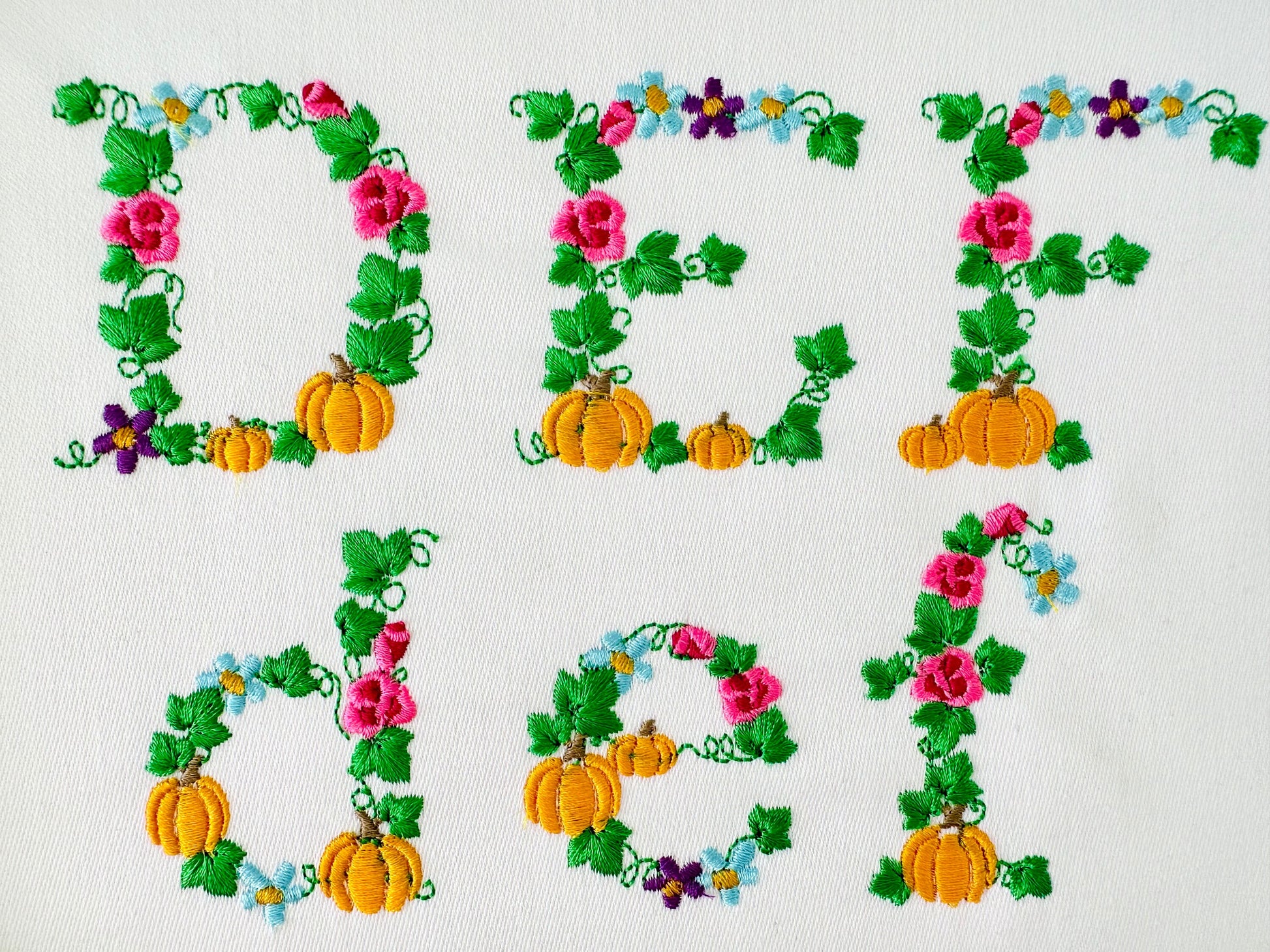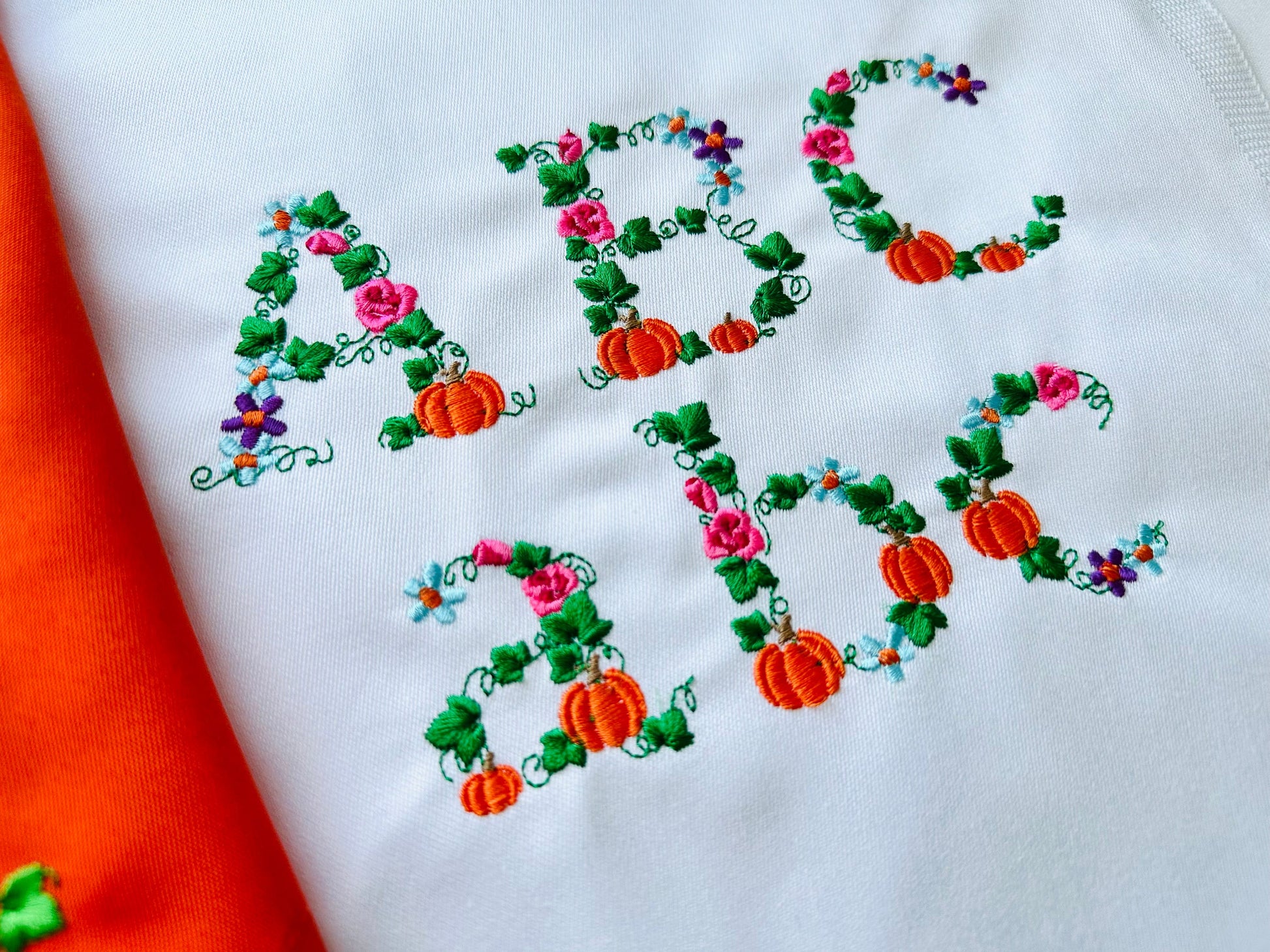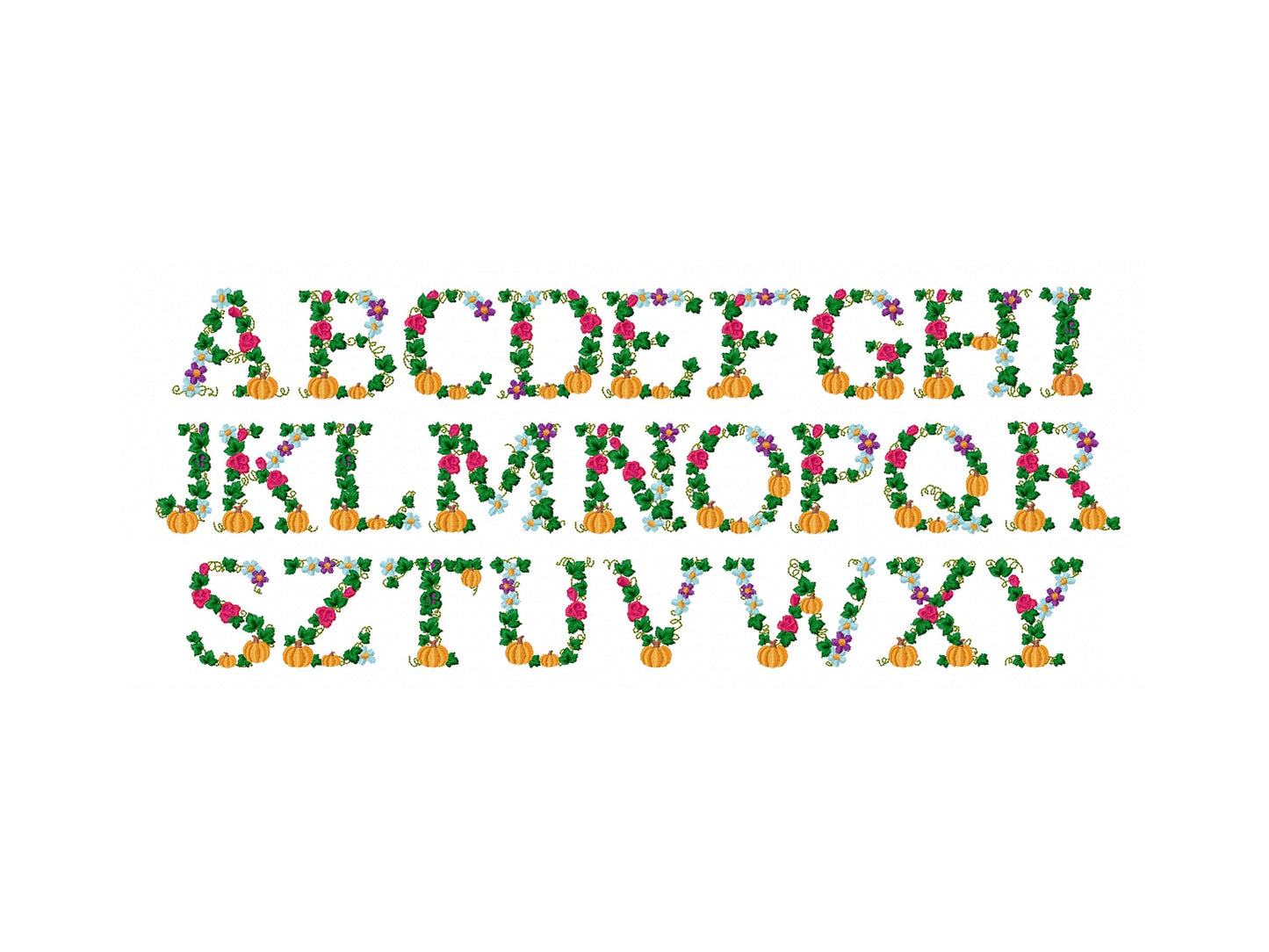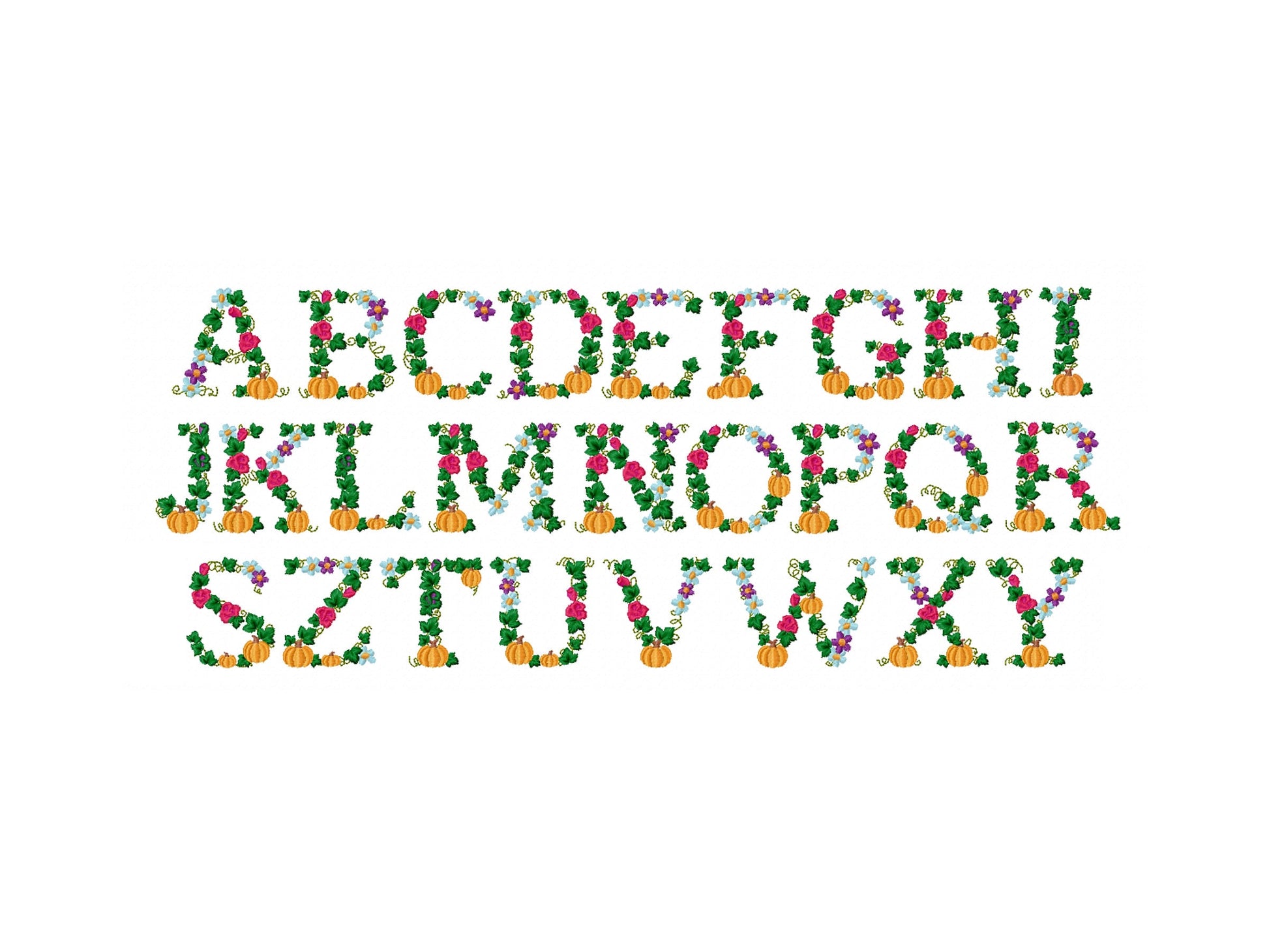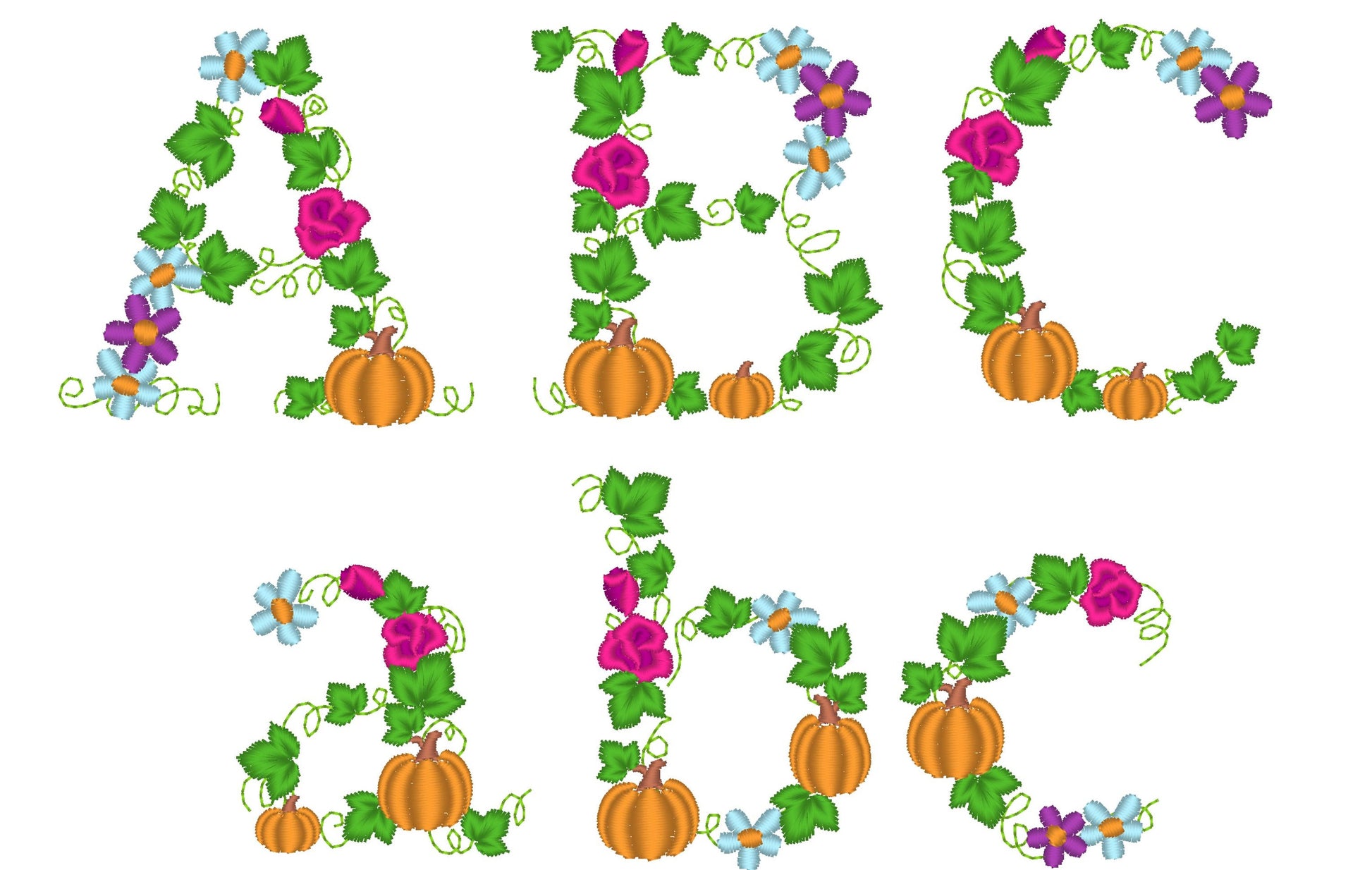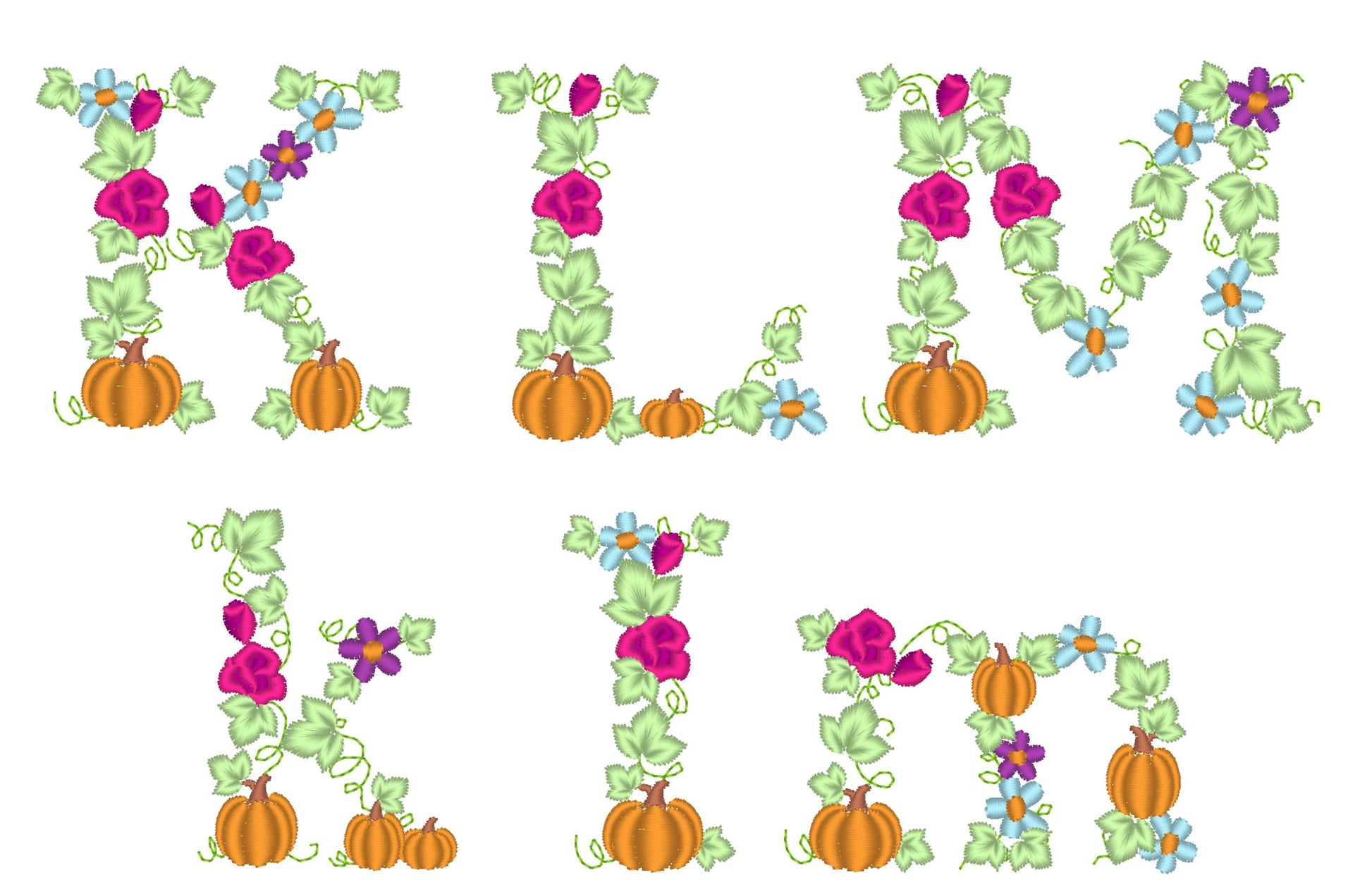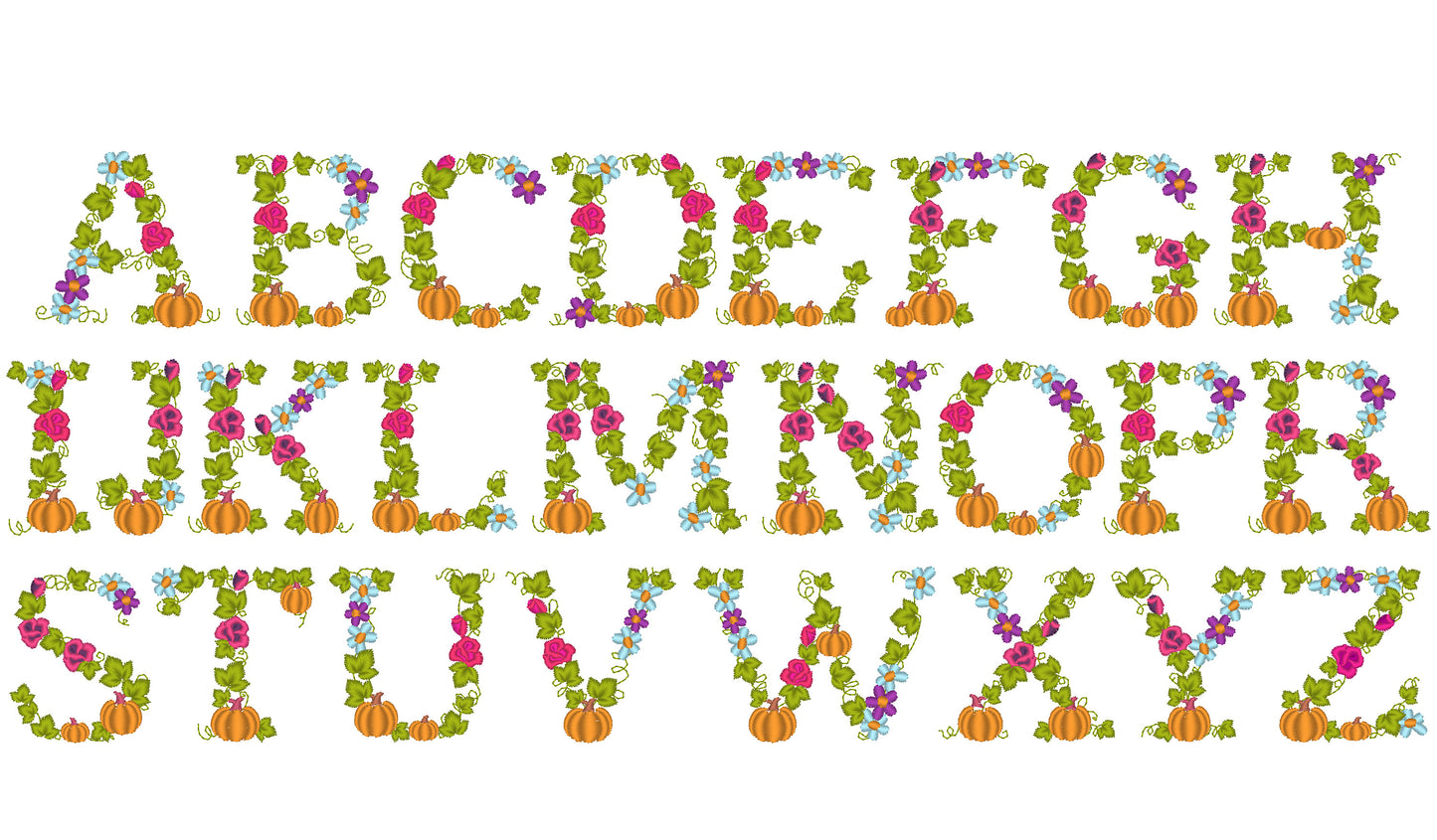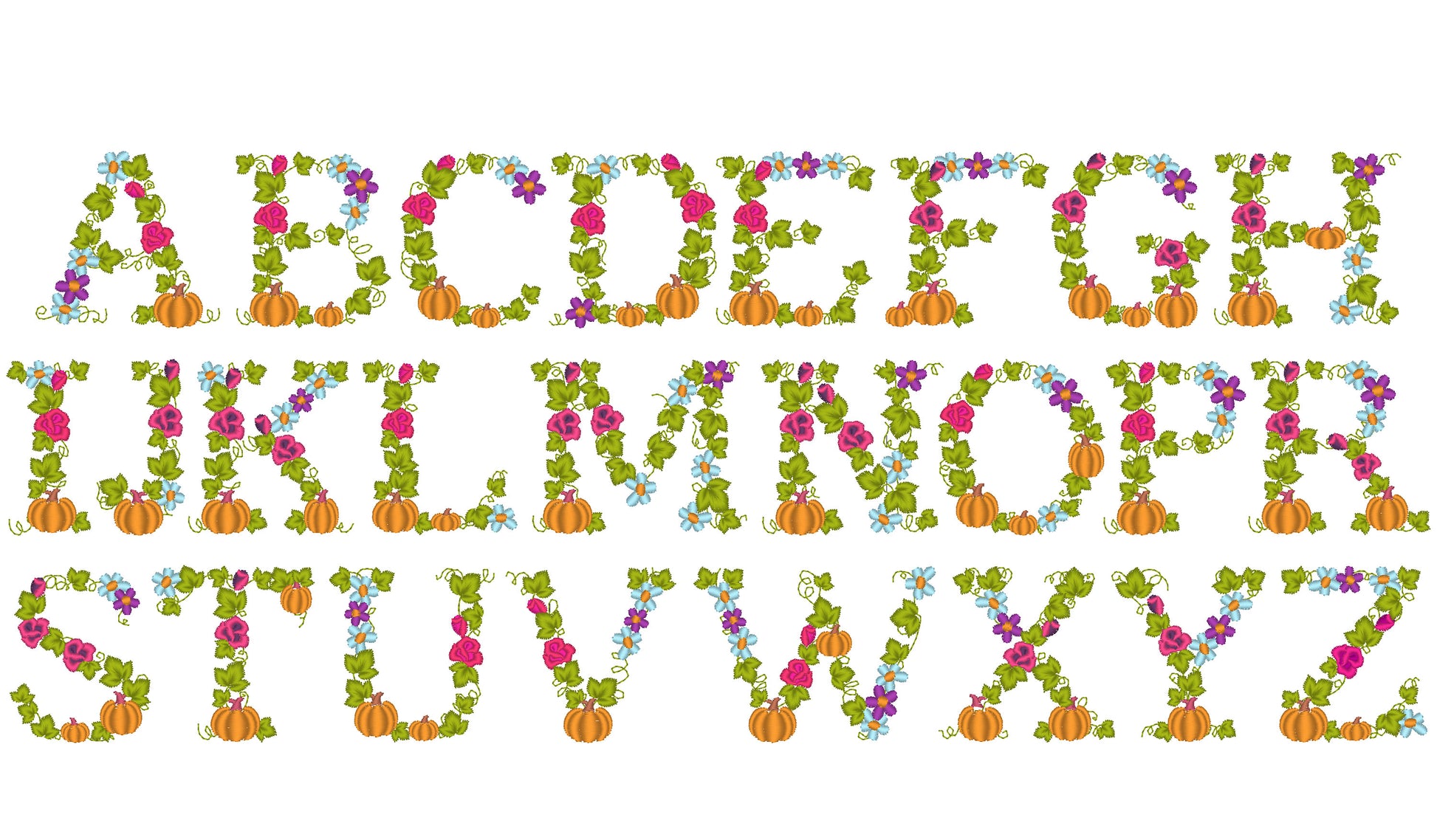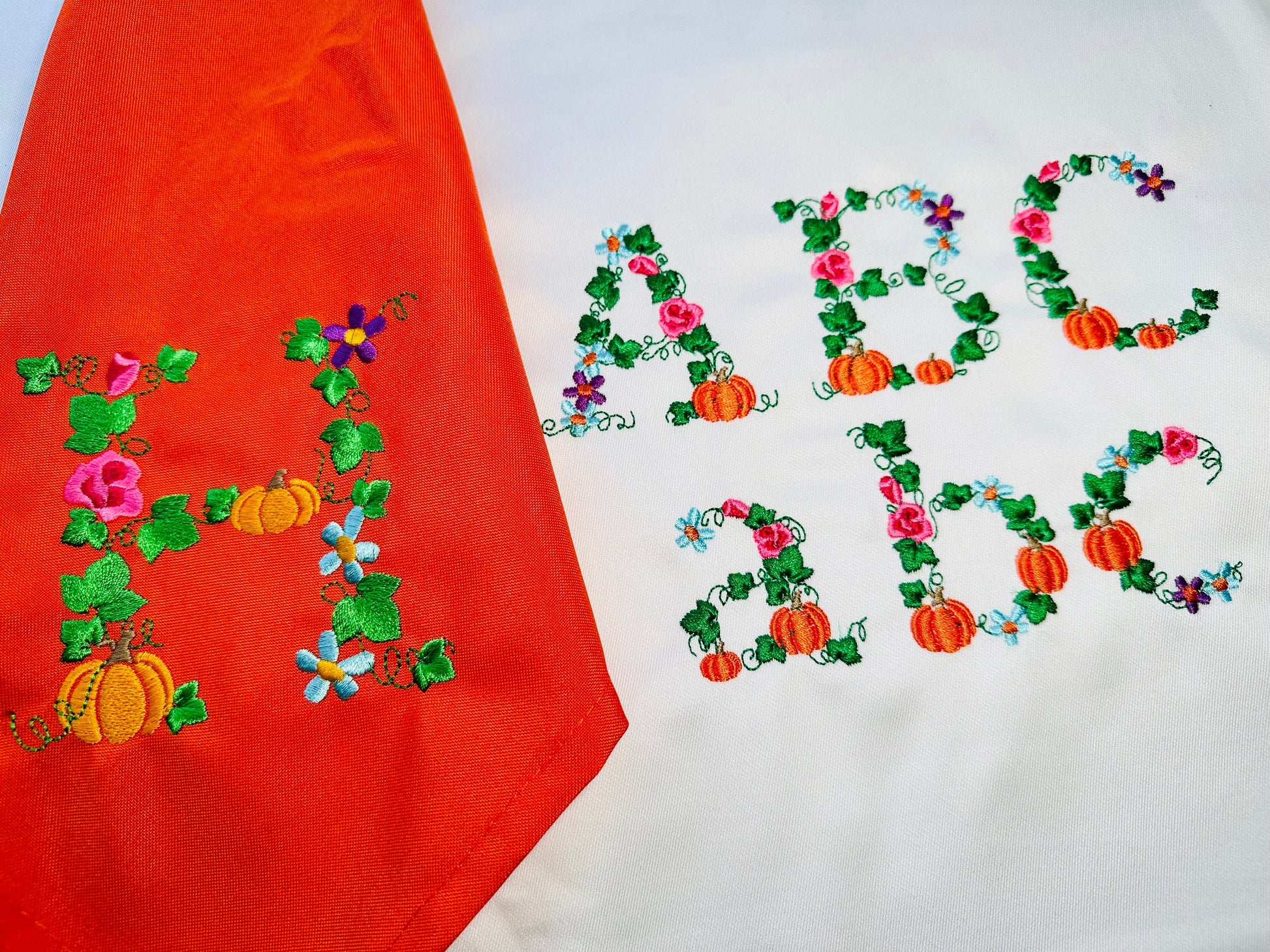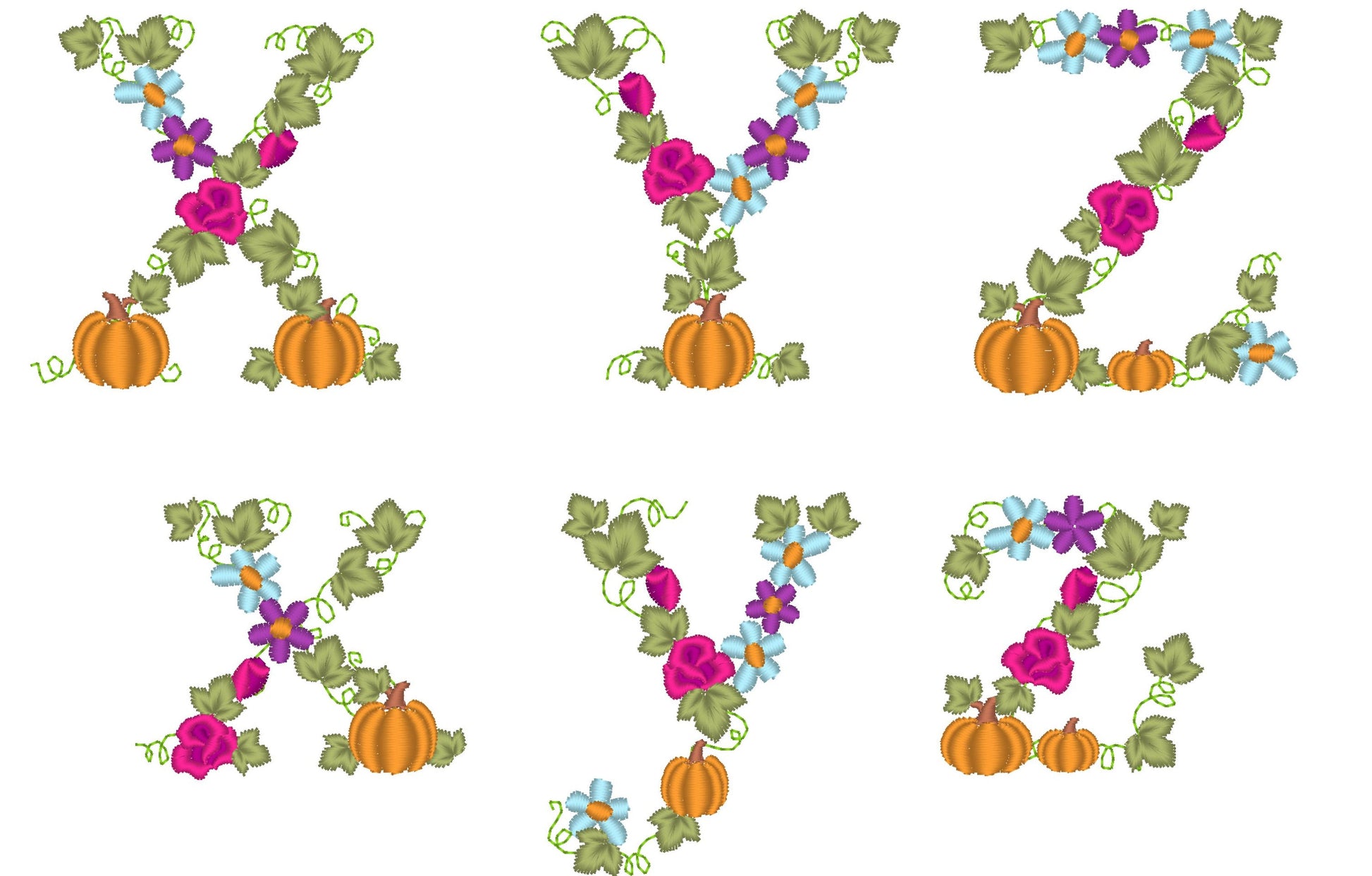
Or click to open the linkA fall floral font with pumpkins, flowers and ivy leaves. Lovely for Thanksgiving towels, pillows, tote bags and monograms.
Uppercase and lowercase letters. Four sizes: 2, 2.5, 3 and 3.5 inches.